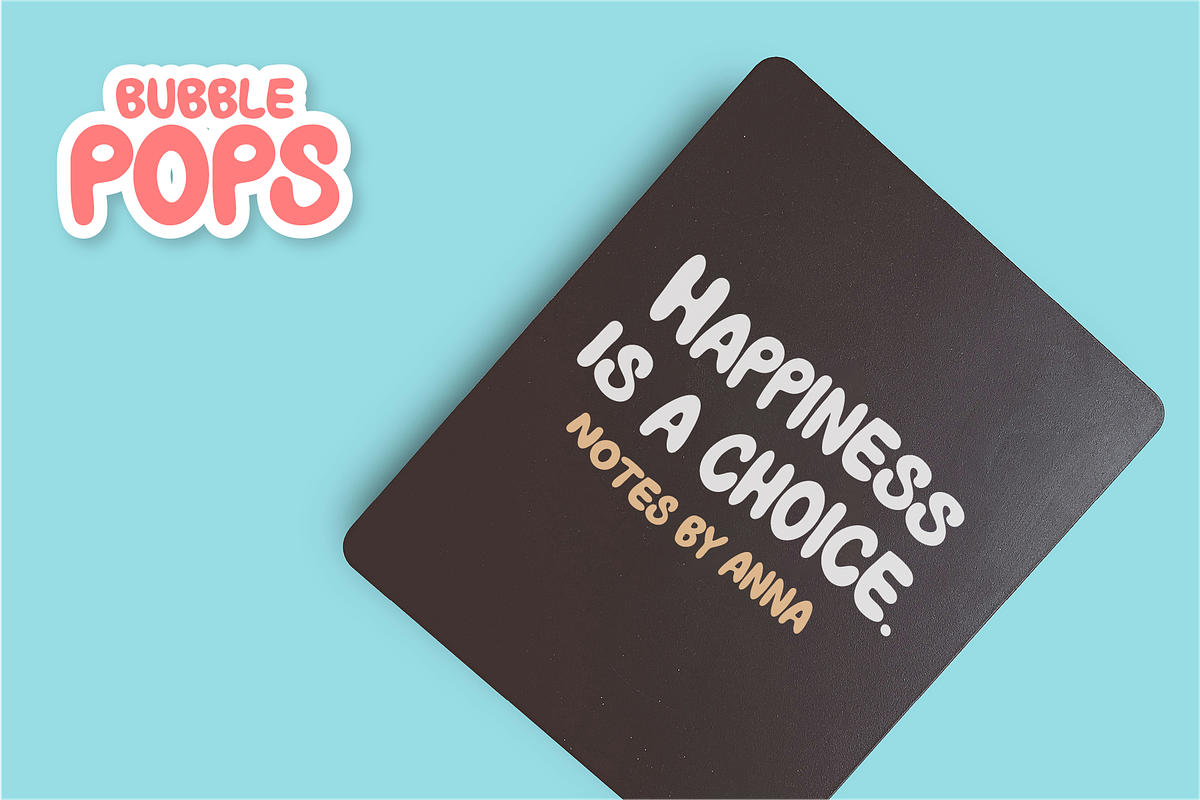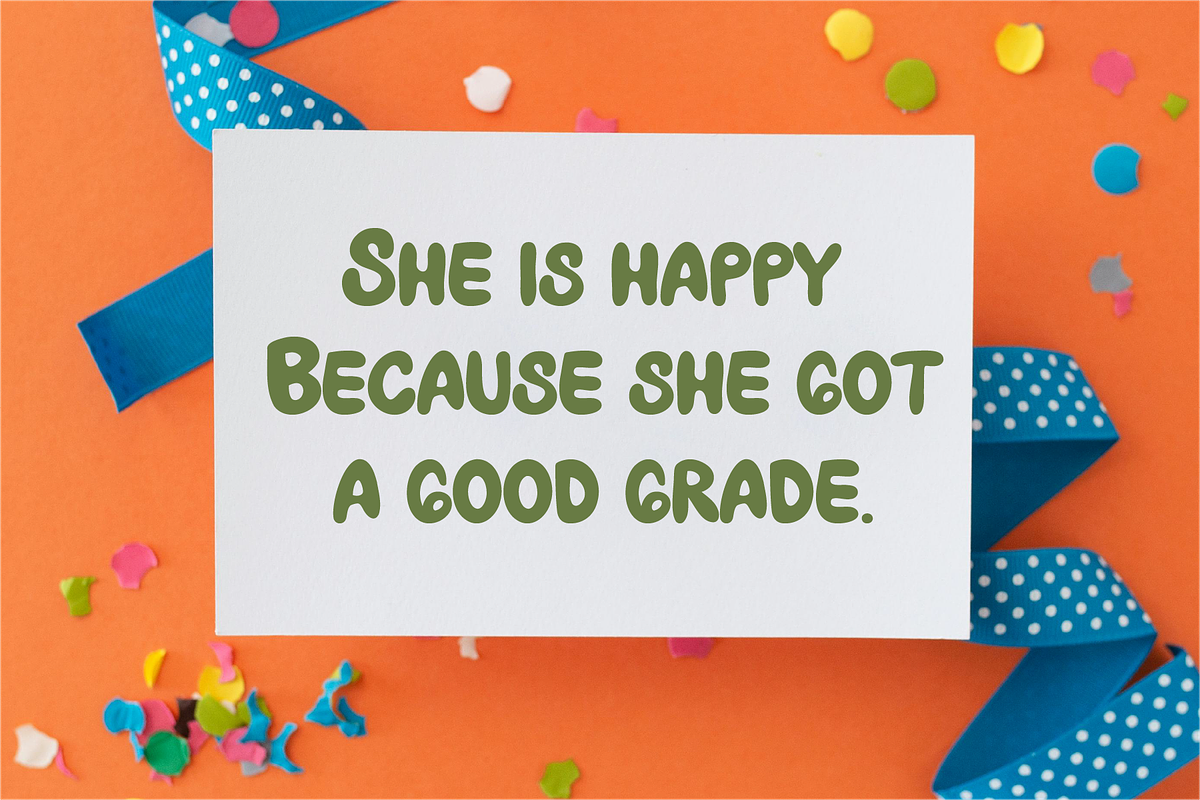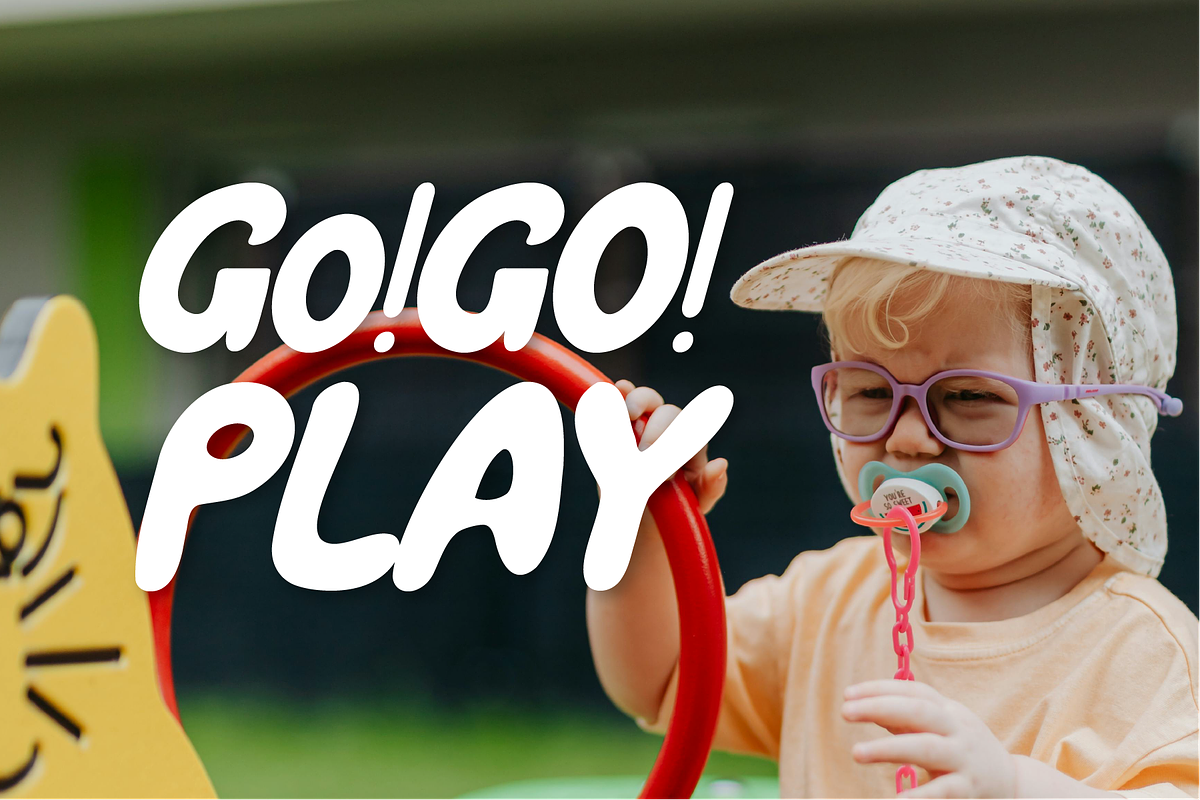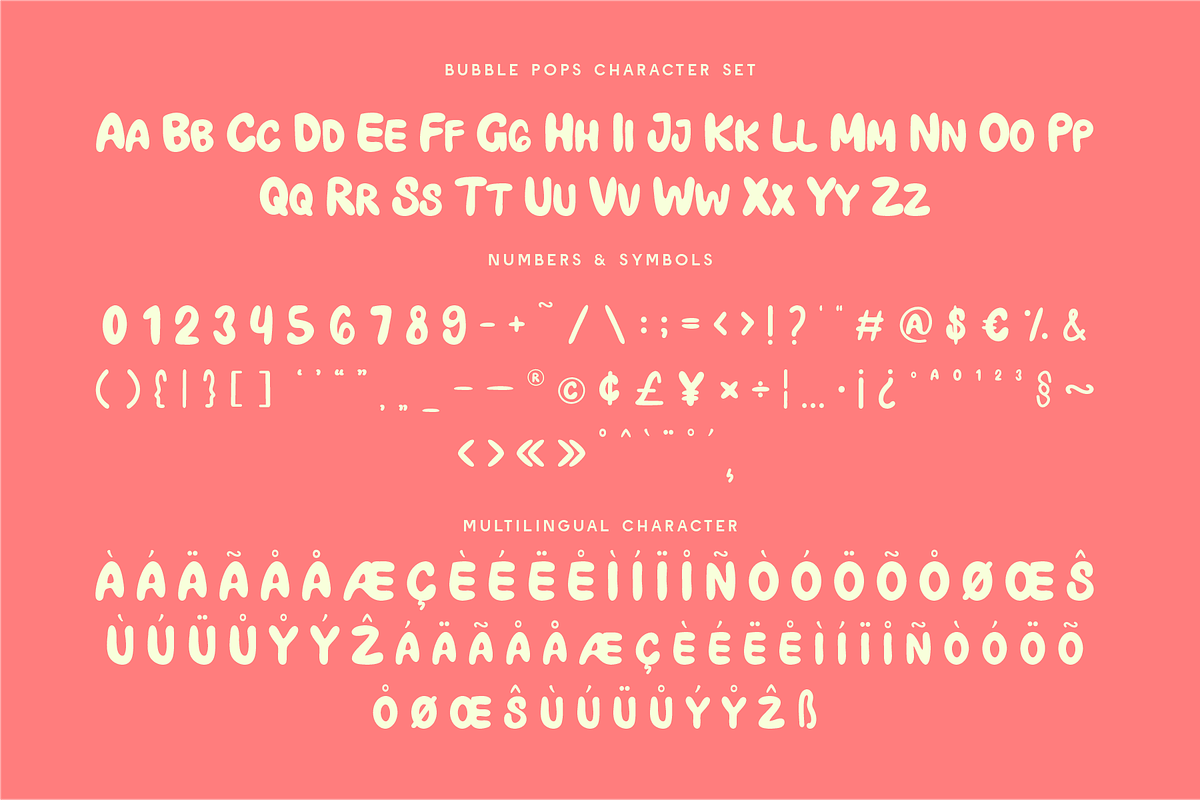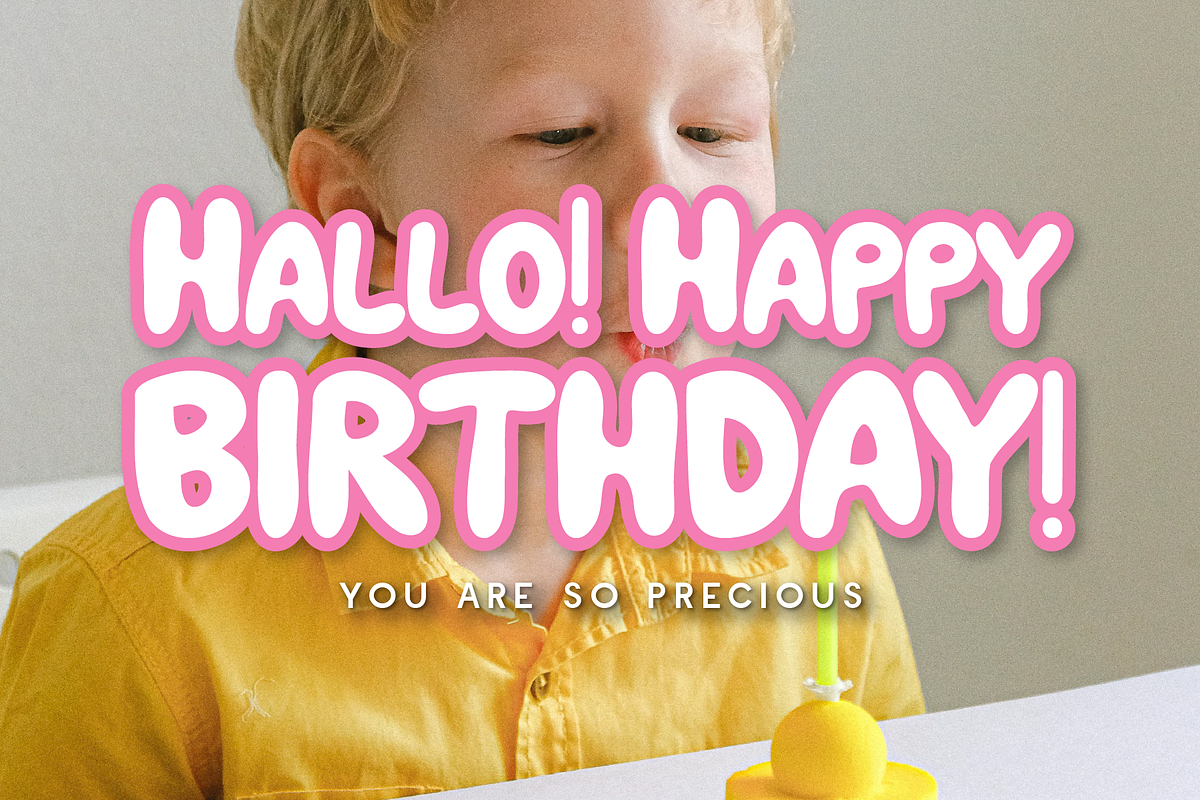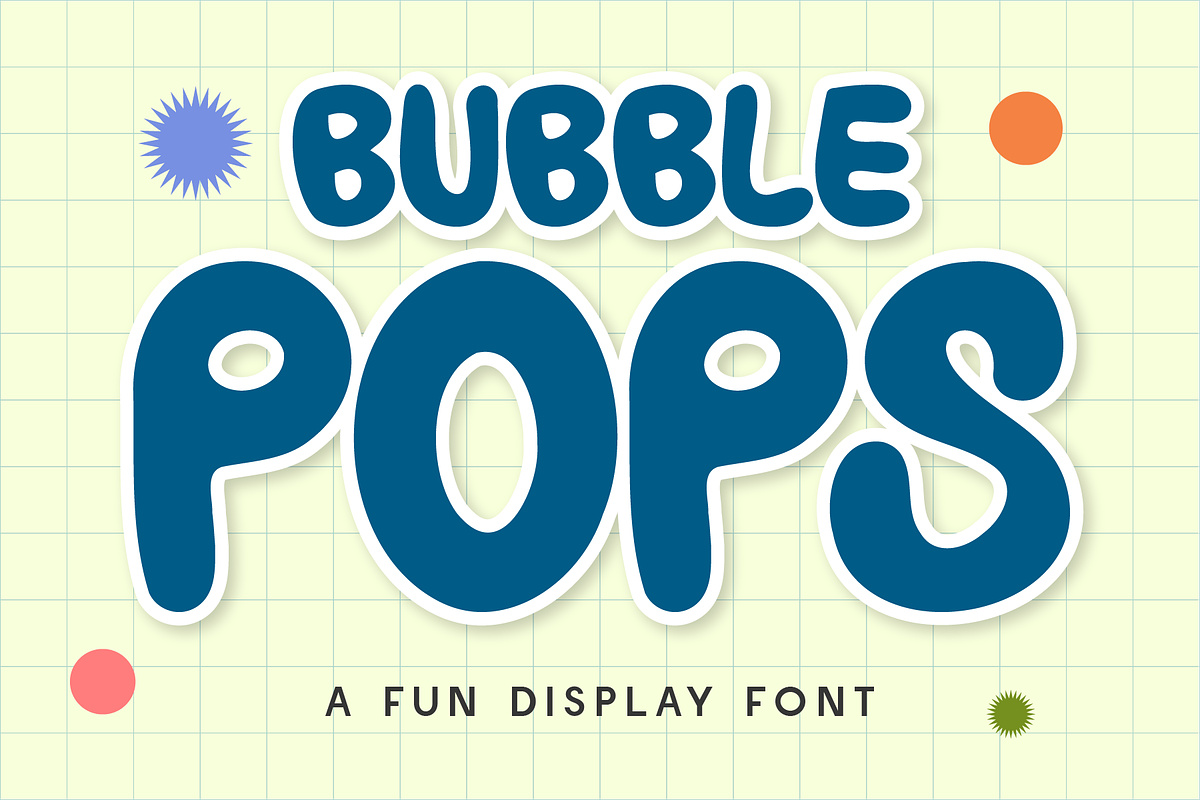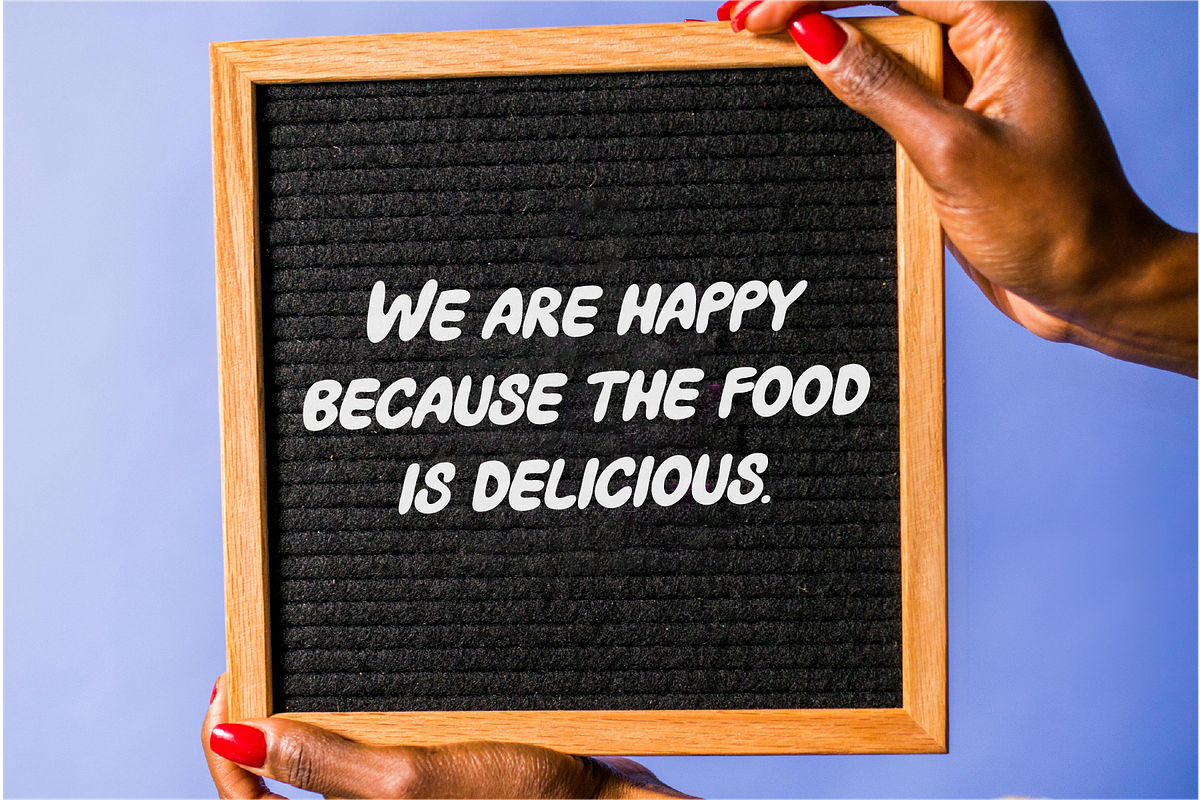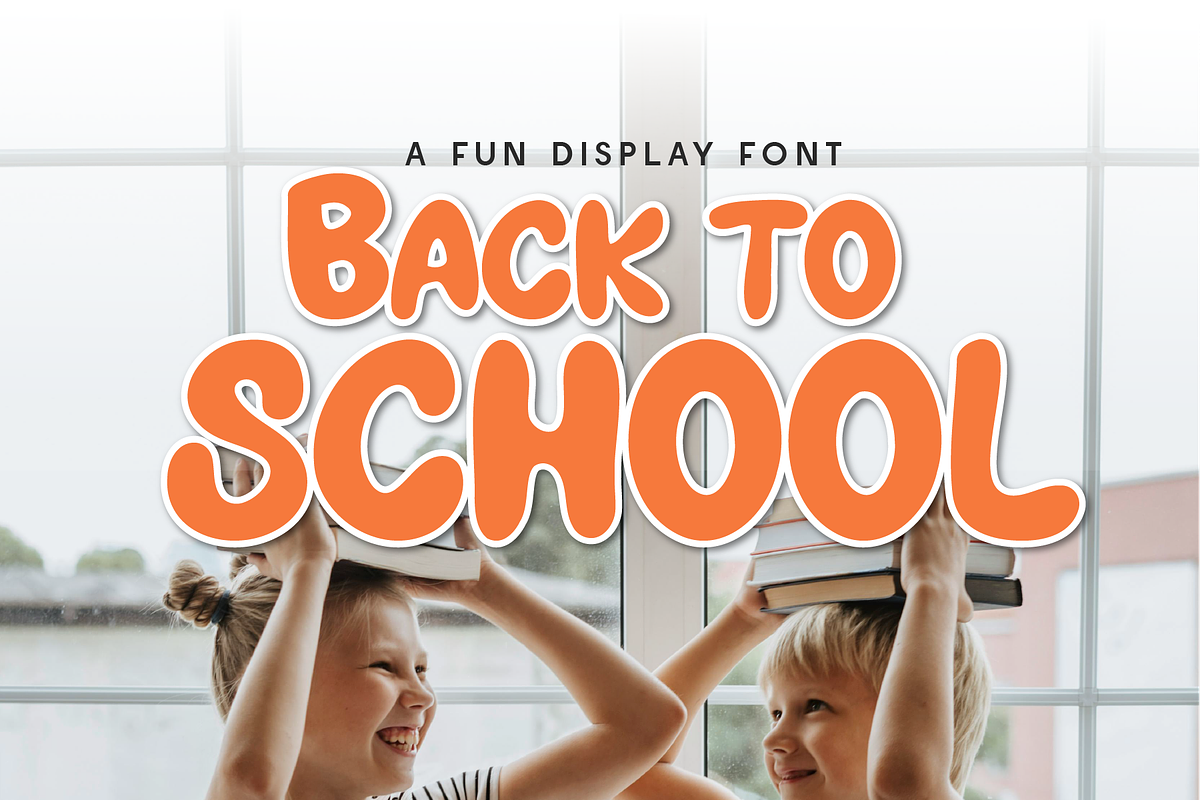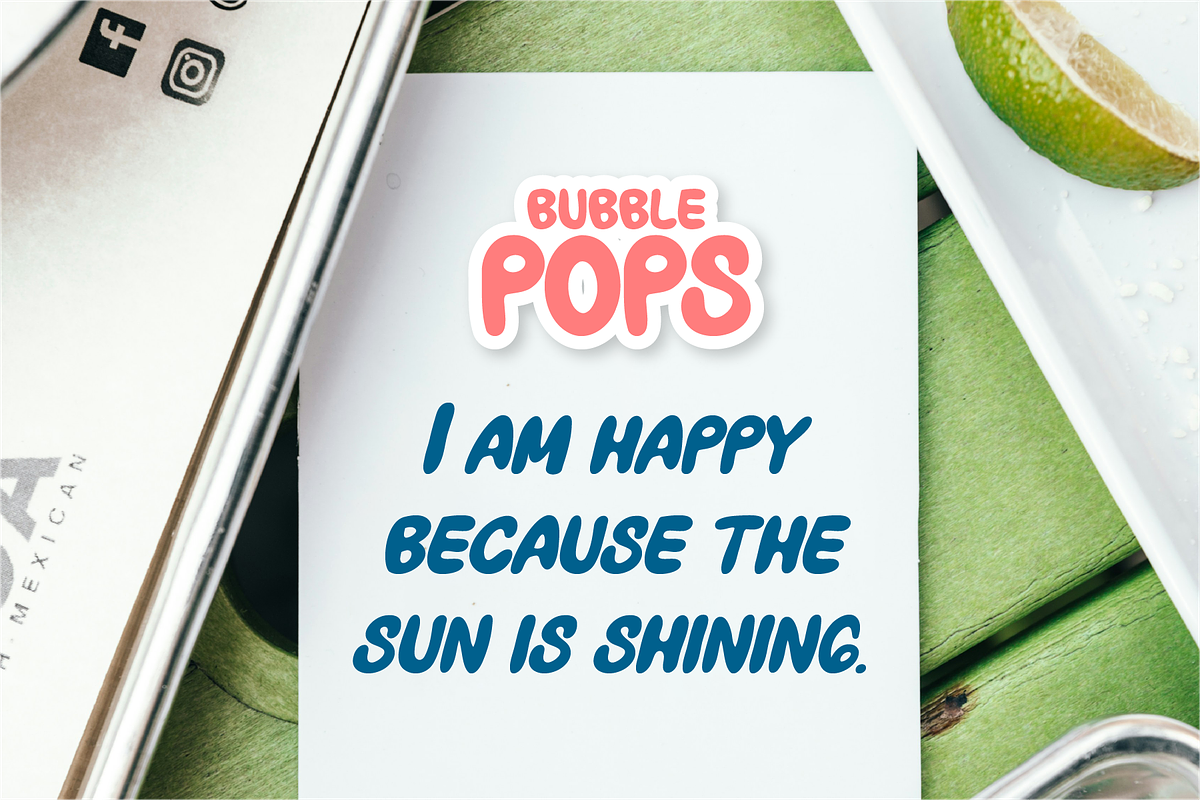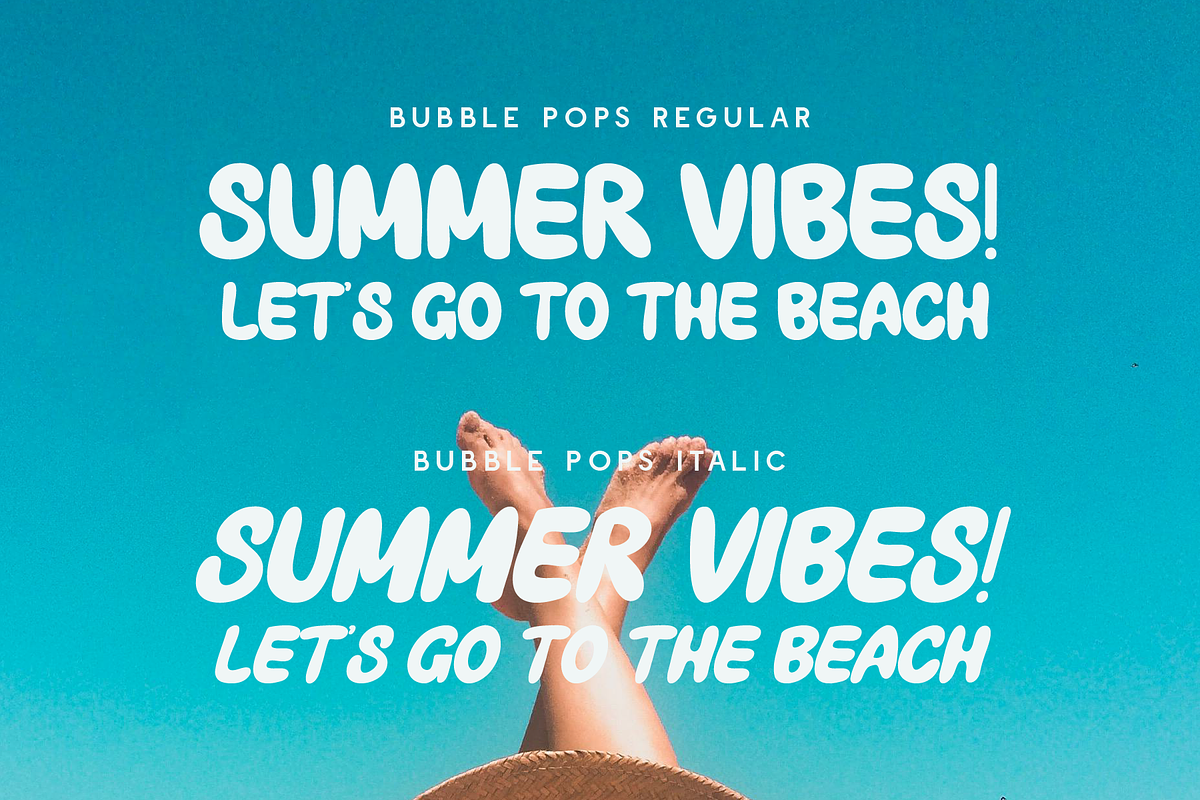
Bubble Pops - Fun Display
Bubble Pops – A Playful Chunky Display Font
Bring your designs to life with Bubble Pops, a cheerful display font full of bold curves and bouncy energy! Crafted with soft rounded edges and a thick, juicy style, Bubble Pops instantly adds fun, friendliness, and approachability to any project.
Perfect for kids’ designs, branding, logos, games, birthday invitations, school projects, playful packaging, and anything that calls for a pop of joy!
The exaggerated forms and bubbly personality of Bubble Pops ensure high readability while keeping a lively and youthful vibe.
Why Choose Bubble Pops?
🎈 Bold and Playful: Chunky rounded letters packed with fun energy.
🎉 Versatile for Fun Projects: Perfect for anything colorful and creative.
🧸 Kid-Friendly Design: Great for children's books, toys, and educational materials.
📚 Highly Legible: Thick and clear forms that stay readable at any size.
🌎 Multilingual Support: Includes numbers, punctuation, and extended language coverage.
- Standard Character A-Z, a-z, 0-9, Punctuation & symbols
- Regular and Italic